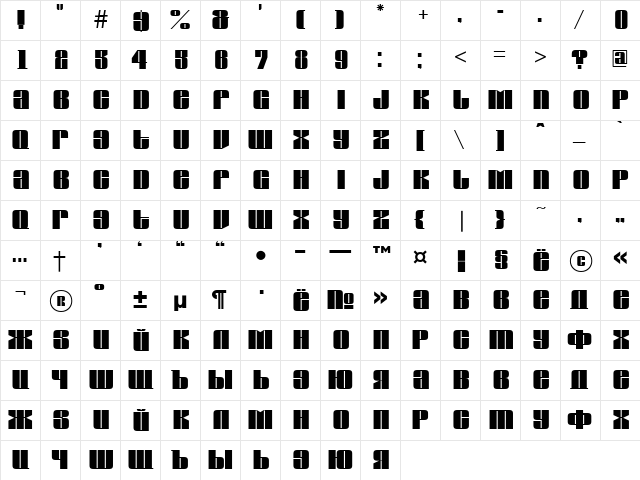
a_Globus Regular
Design Context for a_Globus Typeface
a_Globus takes a measured approach to typography — its balanced proportions and neutral character make it a reliable workhorse for both digital and print work.
Pro Tip: Pair a_Globus with a font of contrasting weight or personality to build a more expressive typographic hierarchy.